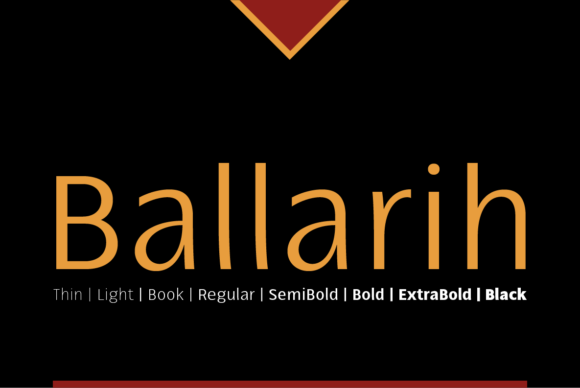
Embrace Ballarih Family Font, a Transcendent Typographic Masterpiece
Unlock the Gates of Visual Elegance with the Ballarih Family Font, an Exquisite Sans Serif Creation by Cort9. Comprising 16 Fonts Across 8 Weights and Their Italic Counterparts, Ballarih Embodies a Realm of Design Possibilities.
Immerse Yourself in Typographic Excellence:
- Captivating Readability: Experience Unparalleled Readability Across Web and Print Platforms. Ballarih's Refined X-Height Delivers Clarity and Visual Appeal, Ensuring Your Designs Shine in Every Medium.
- Seamless Combinations: Unleash Your Creative Freedom with the Ability to Seamlessly Blend Different Ballarih Styles. Mix and Match Weights and Italics to Craft Unique and Engaging Layouts that Reflect Your Artistic Vision.
- Instant Design Versatility: Say Goodbye to Design Deadlocks and Hello to Limitless Expressions. Ballarih's Extensive Family Provides Instant Solutions for Any Design Project, Allowing You to Shift Styles Effortlessly and Craft Designs that Stand the Test of Time.
Elevate Your Designs to New Heights with Ballarih Family Font:
- Embark on a Typographic Journey: From Bold Headlines that Command Attention to Elegant Body Copy that Flows with Grace, Ballarih Offers a Symphony of Typographic Options to Elevate Your Creative Compositions.
- Engage Your Audience with Style: Capture Hearts and Engage Minds with Ballarih's Delicate Yet Compelling Presence. Craft Designs that Resonate with Your Audience, Leaving a Lasting Impression that Inspires and Enchants.
- Create Enduring Impressions: Ballarih is More than Just a Font; It's a Legacy. Its Timeless Beauty Transcends Trends, Ensuring Your Designs Remain Relevant and Captivating for Years to Come.